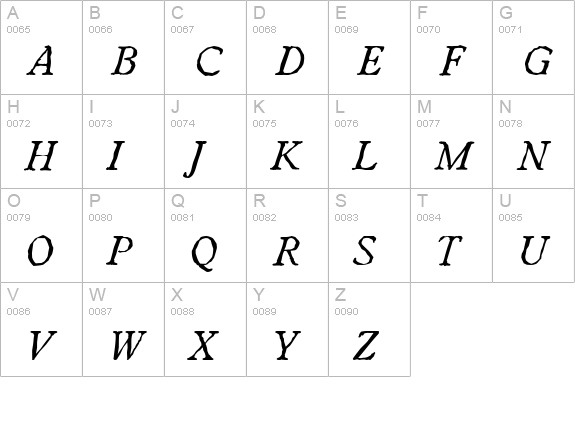
WorcesterAntique-Italic Font Details
WorcesterAntique-Italic is a distinctive, italic variant in the WorcesterAntique typeface family \xE2\x80\x94 well suited to design and typography projects.
Introducing WorcesterAntique-Italic font, a timeless and sophisticated typeface that embodies the elegance of antique typography with a modern twist. Its graceful curves and delicate serifs exude a sense of refinement and charm, making it an ideal choice for adding a touch of vintage flair to your designs. WorcesterAntique-Italic font is perfect for creating invitations, greeting cards, logos, and other projects that require a touch of sophistication. Its italicized style adds a sense of movement and fluidity, making your text come alive on the page. Best of all, WorcesterAntique-Italic font is completely free to download at FontsMarket.com. Now you can elevate your designs with this exquisite typeface without breaking the bank. Don't miss out on the opportunity to add this stunning font to your collection and bring a touch of antique elegance to your projects. Download WorcesterAntique-Italic font today and let your creativity shine!